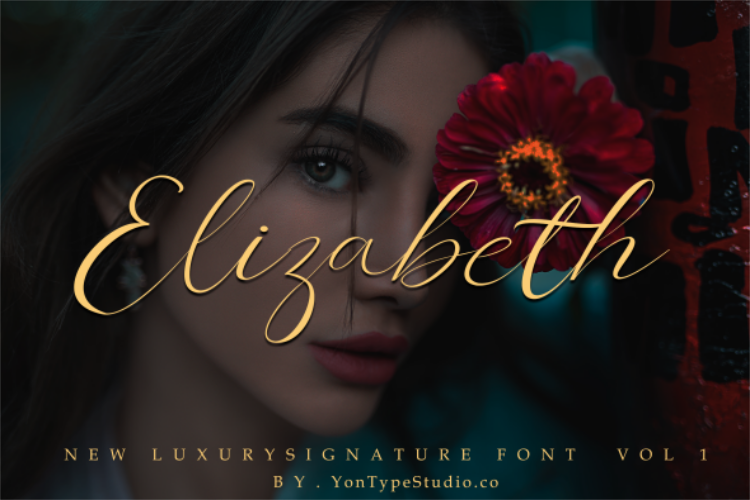
Elizabeth Luxury Signature Font
Elizabeth
LUXURY SIGNATURE TIPOGRAPHY VOL.1
INTRODUCING: Elizabeth signature font.
I have been thinking about this project for a long time. As a graphic designer, who works a lot / works in creating branding, we are often asked to design logos in the Signature style, but with real handwriting vibrations. So, this font is the embodiment of this idea. This is perfect for BRAND. Maybe nothing else, except for BRAND. You won't get a cute, weird and funny logo with this font.
Only Branding Design is sophisticated, upscale, sophisticated.
To maintain the maximum handwriting effect, 63 ligature was created (you can see it between the presentation images). When creating fonts, we must consider that each letter must be able to be connected with other letters. For example, the letter "a" must be well connected as well as with "l" and "n" and with other letters. This limits us: we must start the letter at the right point and finish at the right point. So this is the ligature. The Elizabeth font contains the following ligatures:
ab al in af ah ak an ar am bb bl ck cl ch il it in im fl ff go gl gr gh g el et er eb ht kk ll mm nt ol ot oh on of oo ont pp pl st sl sh tt th th un ur ut uh ux zz and
Elizabeth also includes a full set of upper and lower case letters, multilingual symbols, numbers, punctuation. This font has a smooth wet ink texture, so it will be perfect for all types of printing techniques + You can do embroidery, laser cut, gold foil etc.